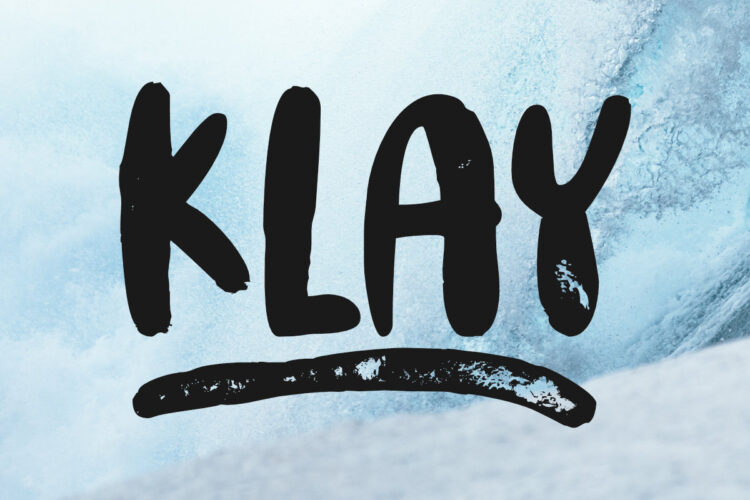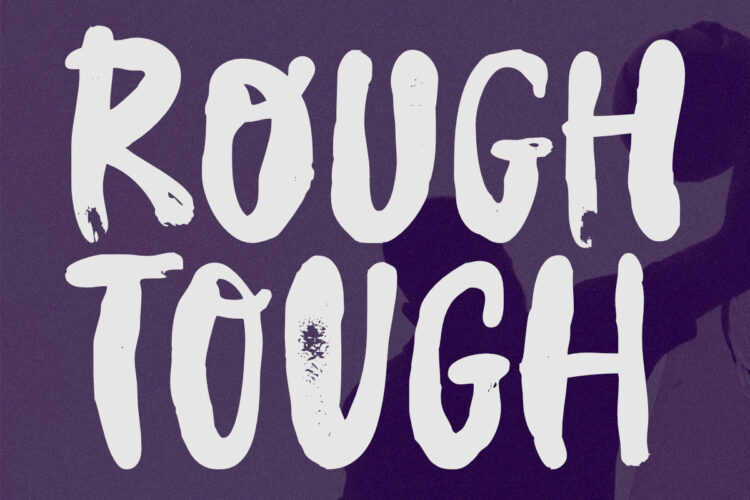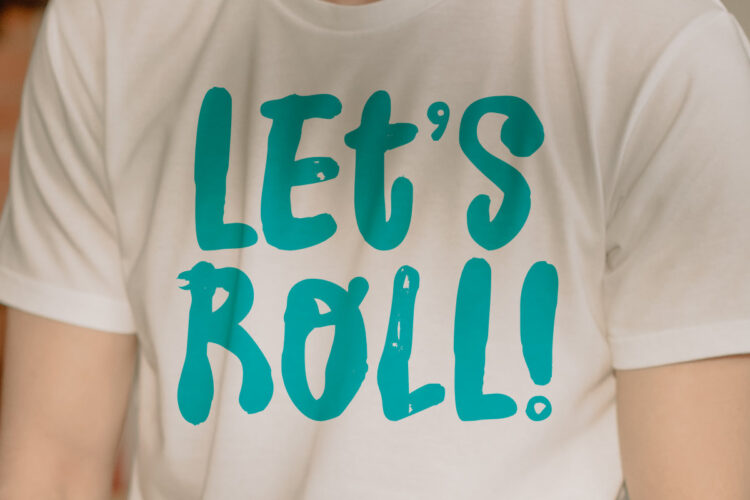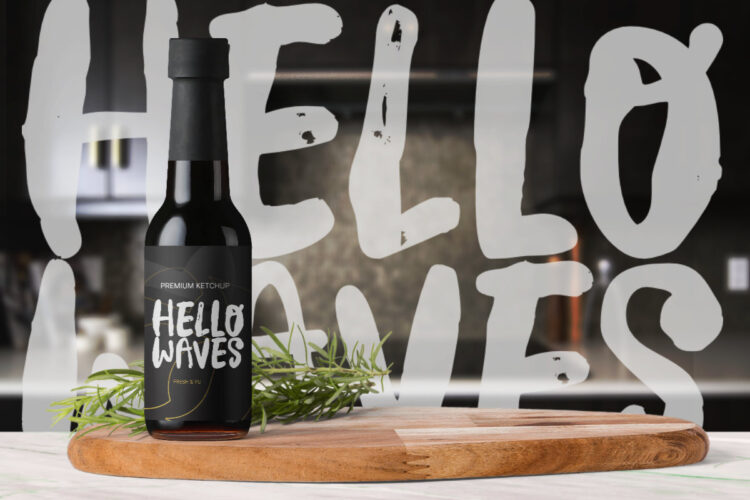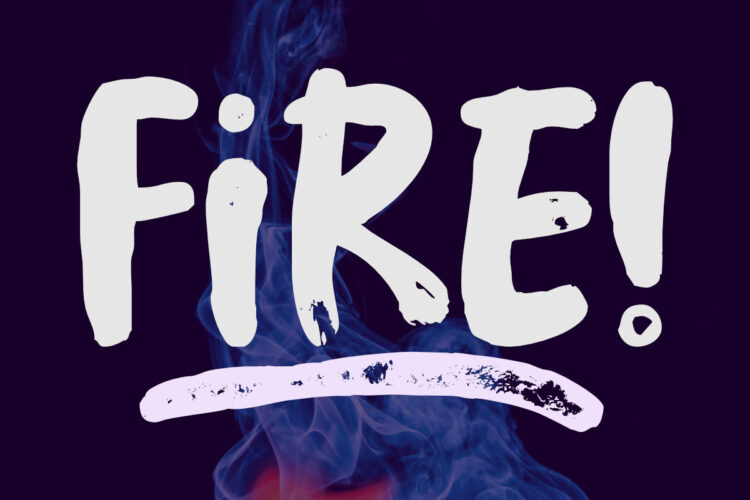
Klay is a stunning brush typeface. Its cool texture is carefully handcrafted to straight away grab the attention of the viewers. Suitable if used for logos, posters, headlines, brandings, apparel, etc.